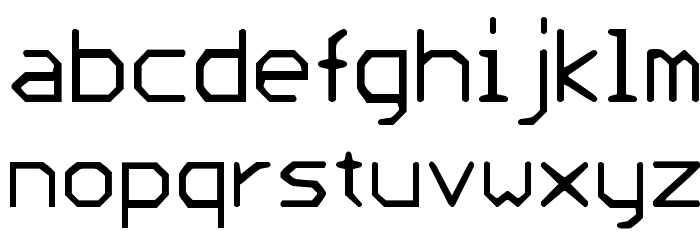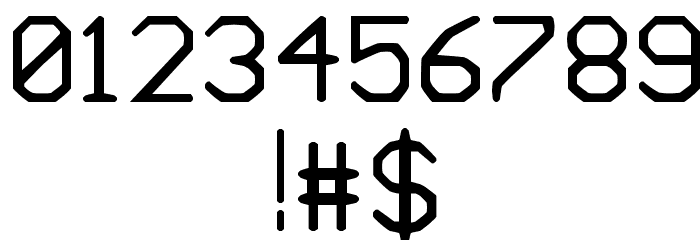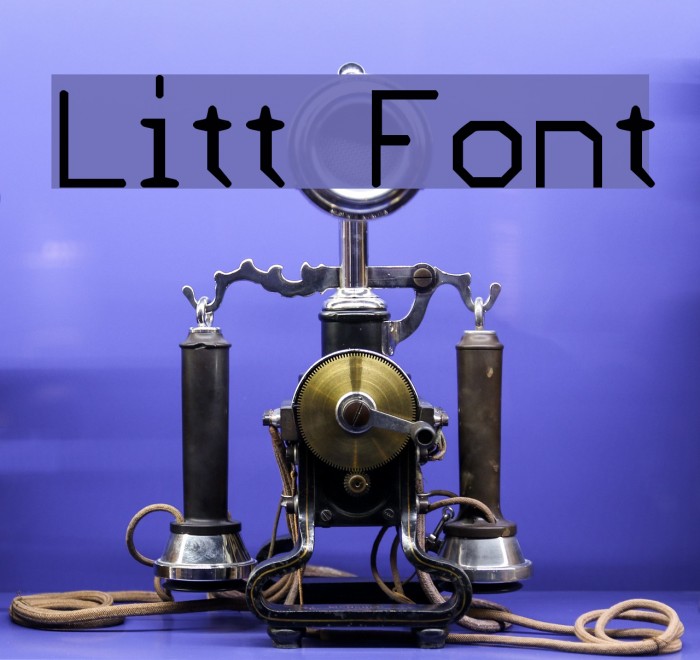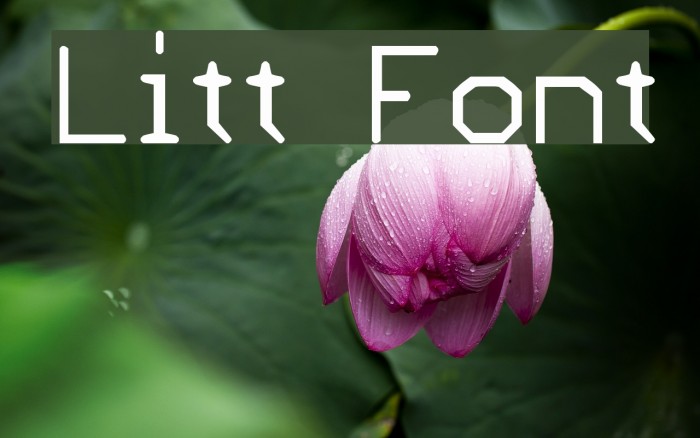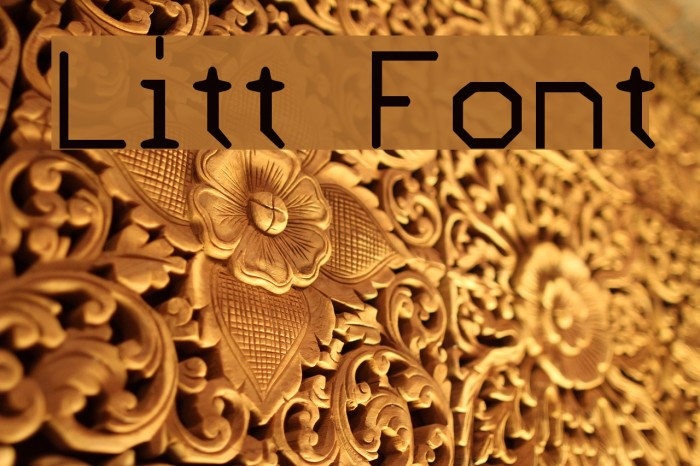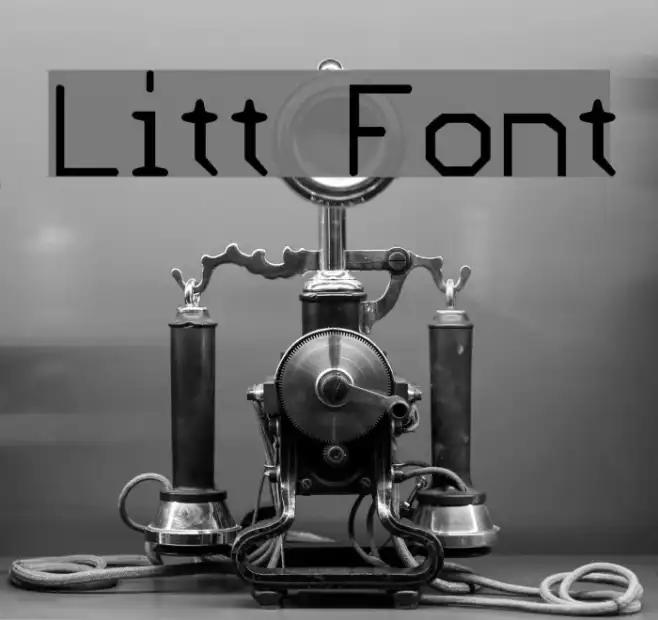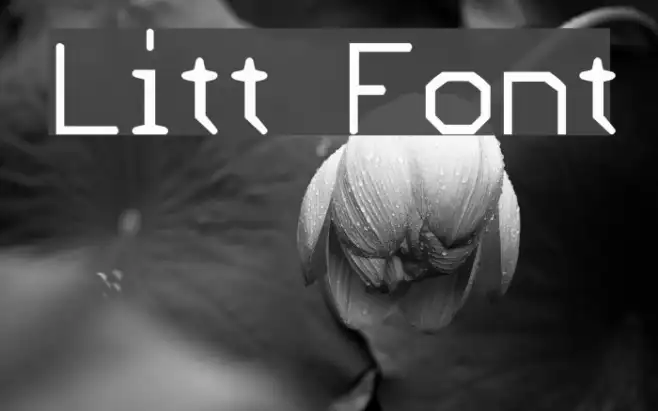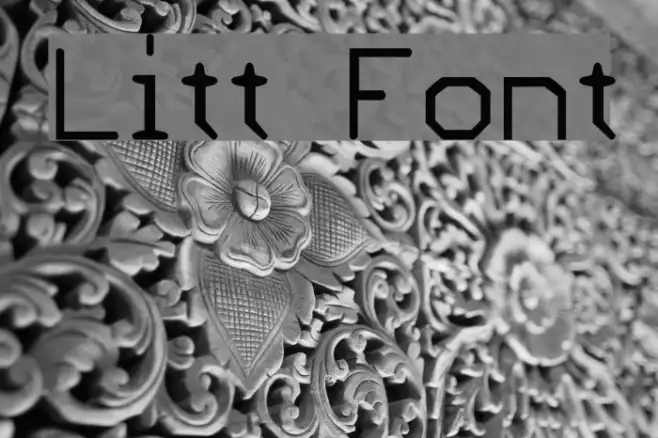
Litt Font
This font features a geometric and angular design, characterized by its distinct octagonal shapes and clean lines. Each character is constructed with precision, offering a futuristic and technical appearance. The uppercase and lowercase letters maintain a consistent style, with sharp edges and uniform stroke widths. The numerals and special characters follow the same design principles, ensuring a cohesive look across all glyphs. This font's unique structure makes it stand out, providing a modern and innovative feel.
A geometric, angular font with a futuristic and technical style.
- Proposed Projects: Ideal for technology branding, sci-fi themed projects, digital interfaces, and modern graphic designs.